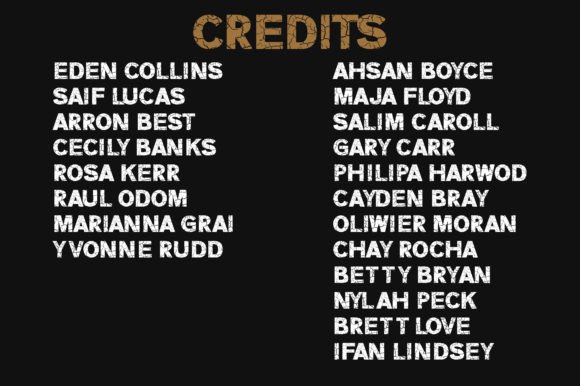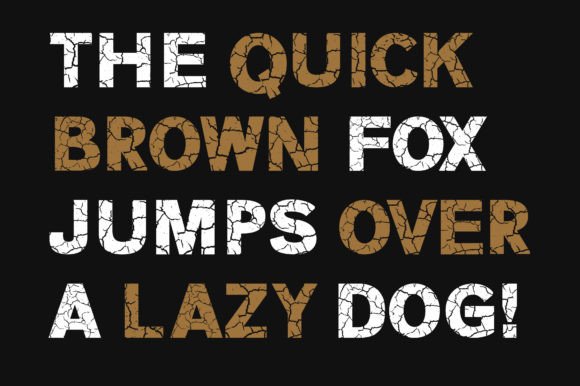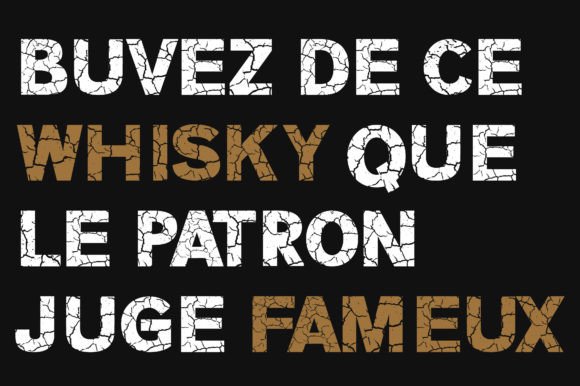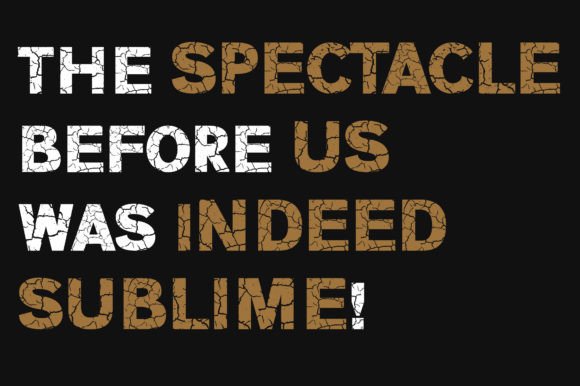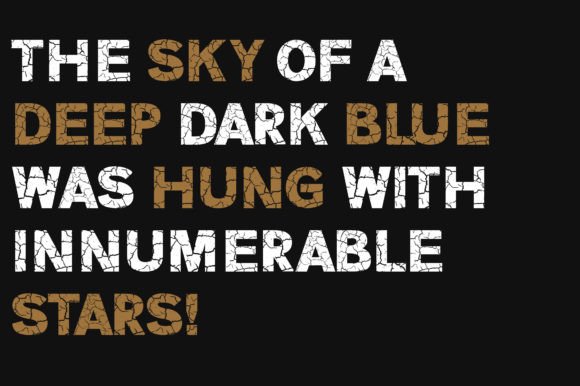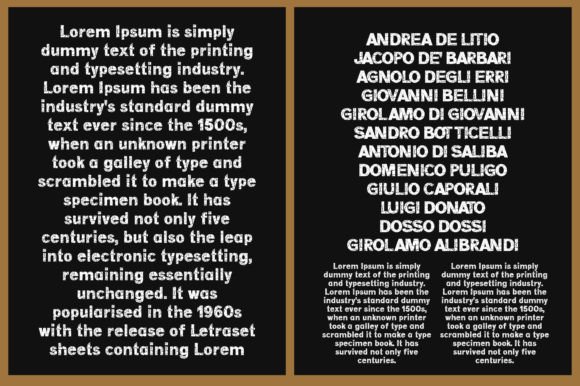
Crack Font: The Ultimate Grungy Textured Typeface for Bold Designs
In the world of typography, fonts play a crucial role in conveying the tone and personality of a design. For designers and crafters looking to add a touch of edginess and uniqueness to their work, Crack Font is a modern, revolutionary, and textured sans serif typeface that is sure to grab attention. With its grungy textures applied to its glyphs, Crack Font is perfect for headings, large-scale banners, posters, and more.
The Power of Grungy Textures
Crack Font’s grungy textures give it a huge power to grab the eye’s attention. The rough, distressed look of the font adds a layer of depth and character to any design, making it stand out from the crowd. Whether you’re designing a poster for a horror movie, a game title, or a Halloween-themed design, Crack Font’s grungy textures are sure to make your work pop.
One of the best things about Crack Font is its versatility. It can suit many themes and design styles, including:
- Action movie titles: Add a bold and edgy touch to your movie title with Crack Font’s grungy textures.
- Game titles: Give your game title a unique and attention-grabbing look with Crack Font.
- Posters: Use Crack Font to create eye-catching posters for concerts, events, or promotions.
- Horror themes: Crack Font’s grungy textures are perfect for horror-themed designs, adding a spooky and eerie feel to your work.
- Halloween: Get into the spooky spirit with Crack Font’s grungy textures, perfect for Halloween-themed designs.
Why Choose Crack Font?
So, why choose Crack Font over other typefaces? Here are just a few reasons:
- Unique look: Crack Font’s grungy textures give it a unique and distinctive look that sets it apart from other typefaces.
- Attention-grabbing: The font’s distressed look is sure to grab attention, making it perfect for headings, titles, and posters.
- Versatile: Crack Font can be used for a wide range of design styles and themes, from horror to gaming.
- Modern and revolutionary: Crack Font is a modern and revolutionary typeface that is sure to add a touch of edginess to your design.
How to Use Crack Font
Using Crack Font is easy. Here are a few tips to get you started:
- Use it for headings: Crack Font is perfect for headings and titles, adding a bold and attention-grabbing touch to your design.
- Experiment with sizes: Try using Crack Font in different sizes to create visual interest and hierarchy in your design.
- Pair it with other fonts: Crack Font can be paired with other fonts to create a unique and interesting contrast.
In conclusion, Crack Font is a powerful and versatile typeface that is perfect for designers and crafters looking to add a touch of edginess and uniqueness to their work. With its grungy textures and modern, revolutionary design, Crack Font is sure to grab attention and make your design stand out. Whether you’re designing a poster, a game title, or a horror-themed design, Crack Font is the perfect choice.